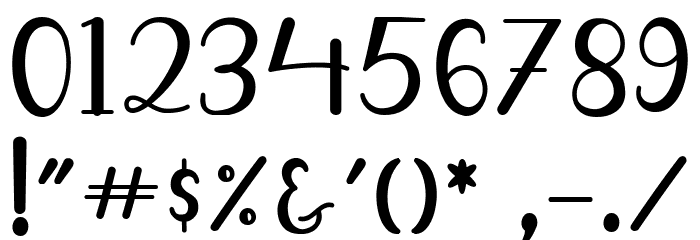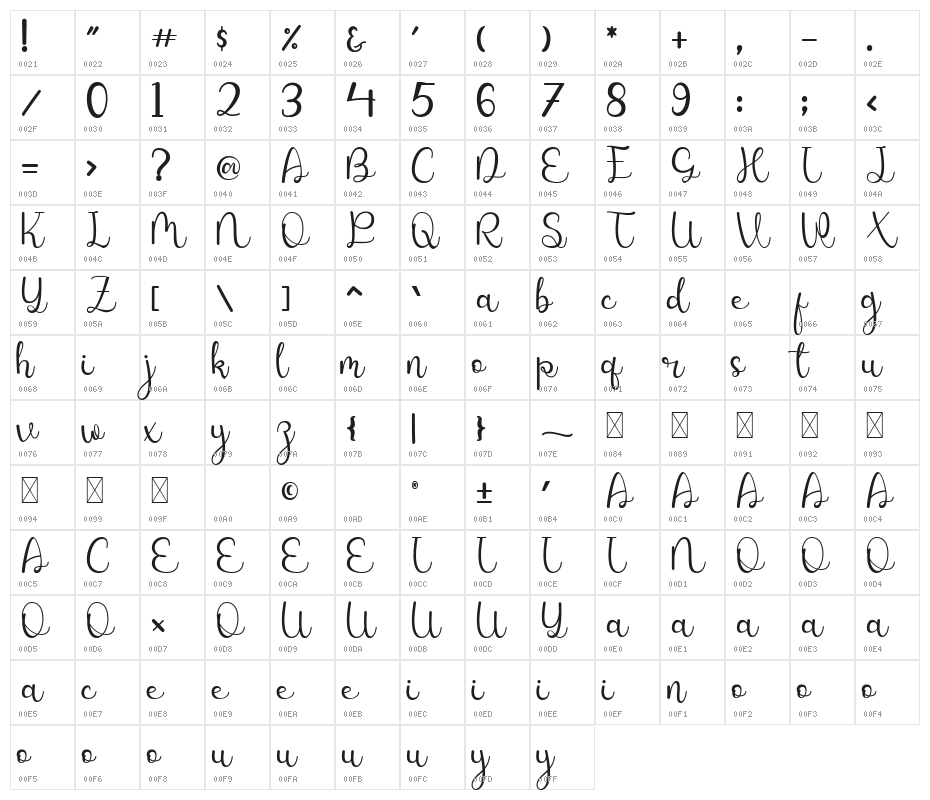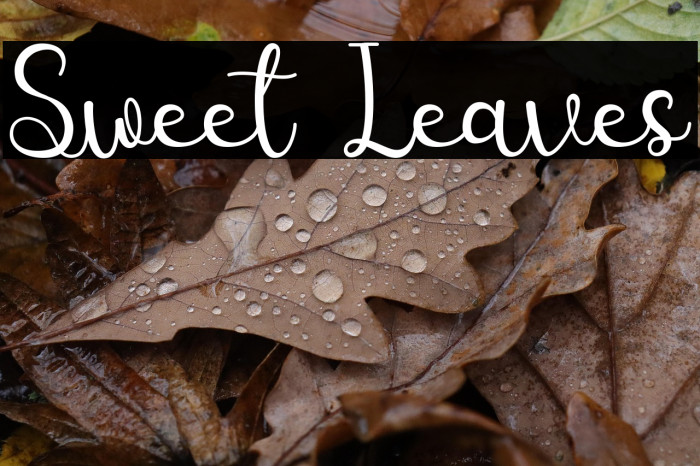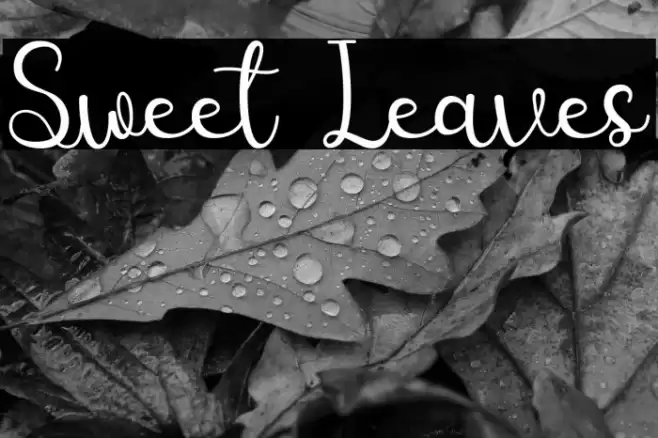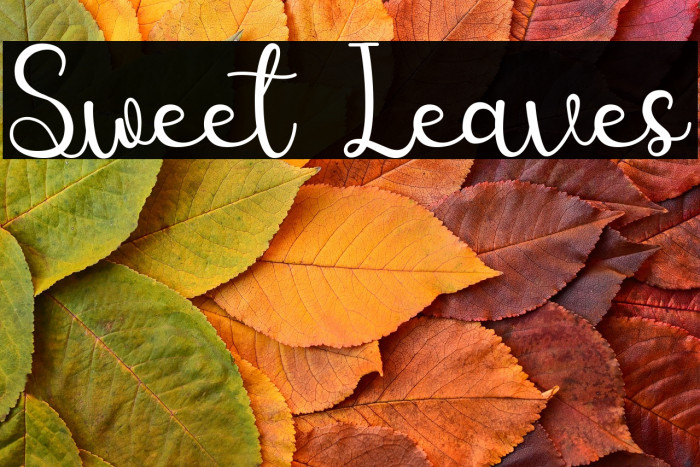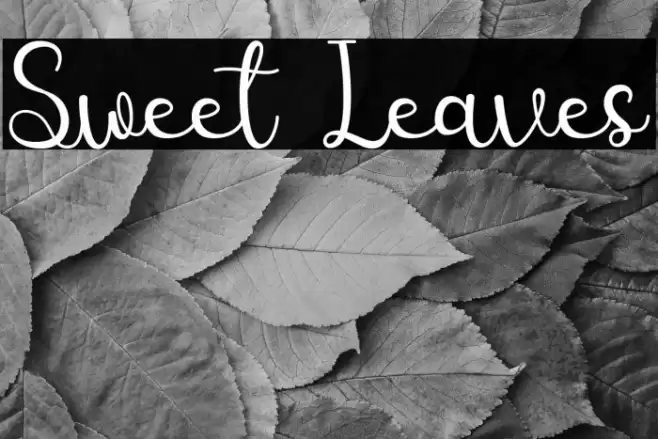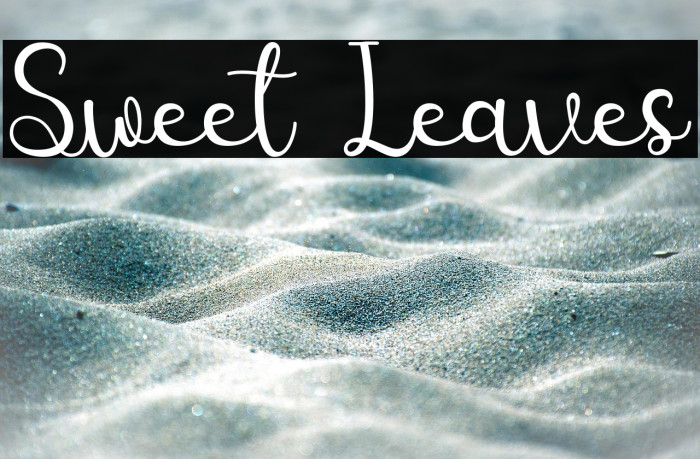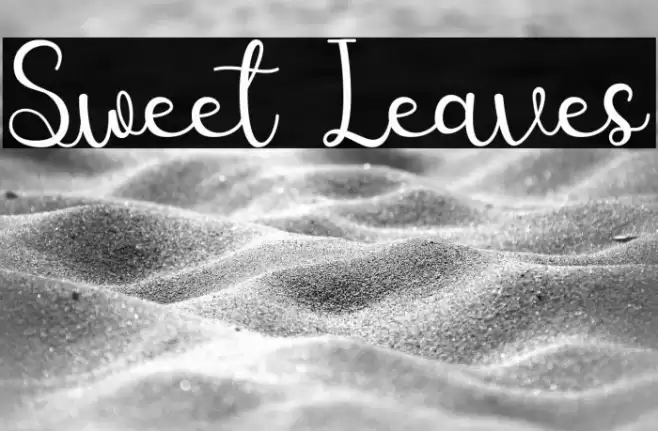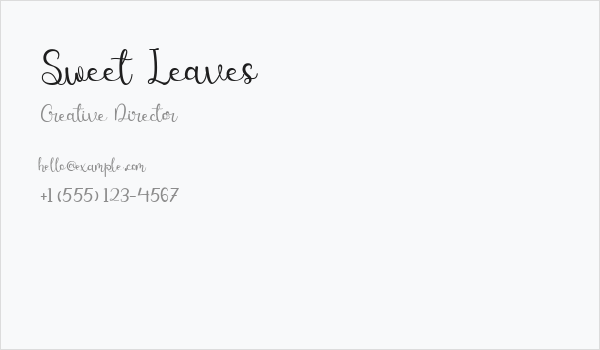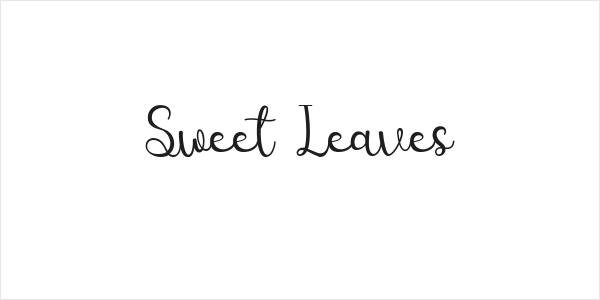
Sweet Leaves Font
Sweet Leaves Description
This font features a whimsical and playful script style with a handwritten appearance. The uppercase letters are characterized by smooth, flowing curves and loops, giving them an elegant yet casual feel. The lowercase letters continue this theme with a slightly more intricate design, incorporating loops and swirls that add a touch of sophistication. The numerals are clear and easy to read, maintaining the playful aesthetic. Special characters are creatively designed, fitting seamlessly with the overall style. This font is perfect for projects that require a personal touch, such as invitations, greeting cards, or branding materials.
| Proposed Projects | Ideal for invitations, greeting cards, branding, and personal projects. |